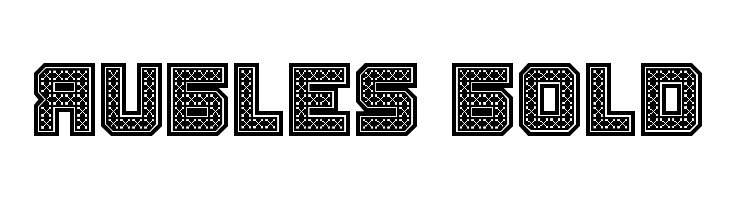
( Vladimir Nikolic - www.coroflot.com/vladimirnikolic )
Intricate geometric patterns in square frames, ideal for decorative use.
( Vladimir Nikolic - www.coroflot.com/vladimirnikolic )
A bold, decorative font with intricate geometric patterns.
( Character )
A decorative font with a stained glass-inspired, geometric design.
( Digital Magic - www.graphicdesignplus.com/helen/digitalmagic/ )
Intricate square patterns with geometric shapes, not a valid font.
( Fonts by Indra Gunawan )
A textured, stone-like font with a bold, geometric style.
( Fonts by Mozarella Art )
A decorative font with intricate floral patterns within bold uppercase letters.
( Fonts by Jennifer Chocolate )
A geometric, tile-patterned font with a modern and artistic flair.
( Fonts by Jennifer Chocolate )
A geometric, tile-inspired font with a modern and decorative style.
A pixelated, grid-like font with a retro digital aesthetic.